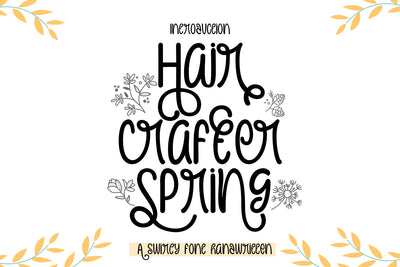
Hair Crafter Spring font
Hair Crafter Spring font this is a cute script font, looks very special, very suitable for labeling the name of goods, products, clothes, books, or social media notes and much more, there are several alternatives that you can use and choose, and are supported by PUA or also with open the character map.